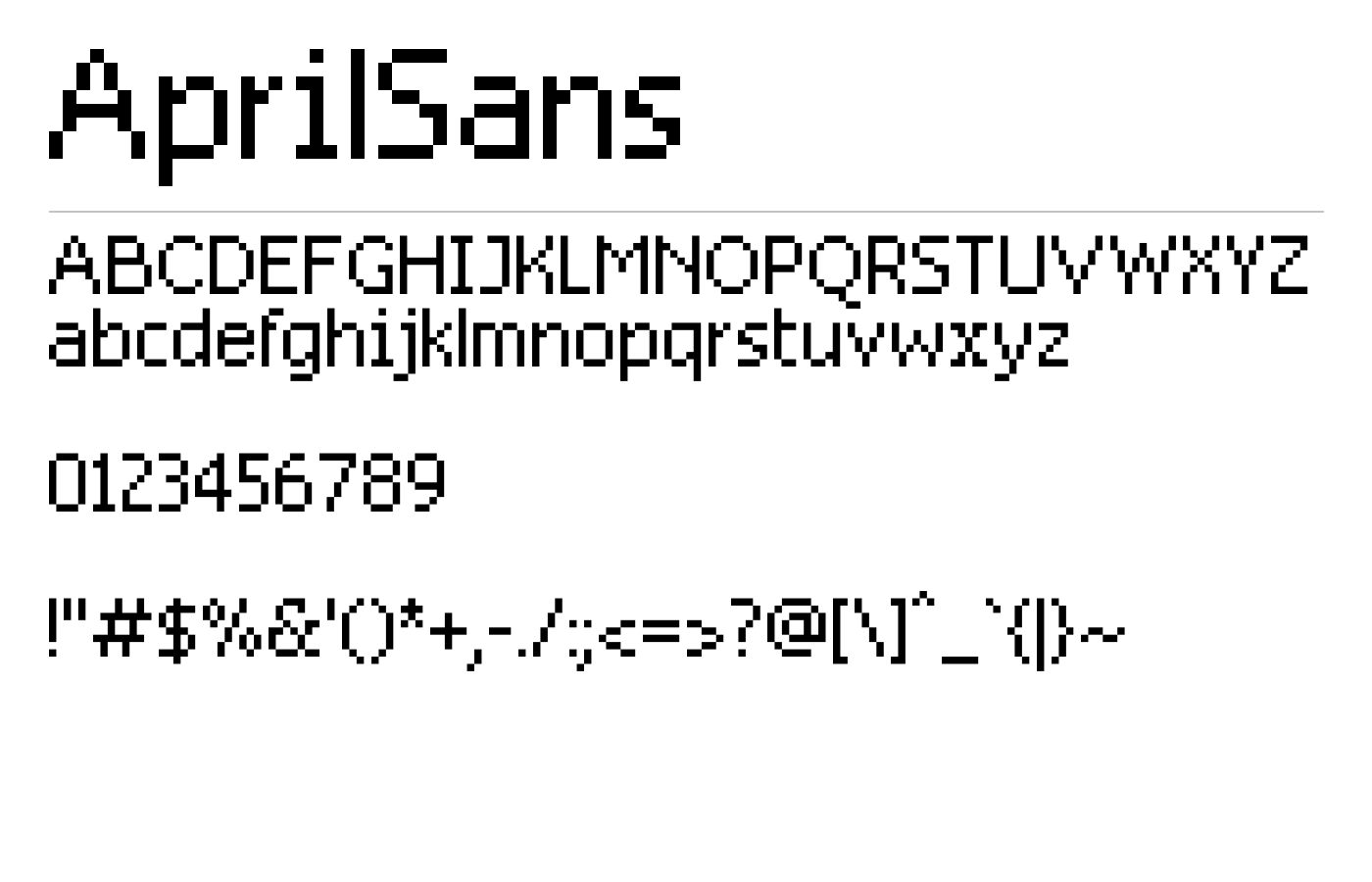
AprilSans is a pixelated sans serif font characterized by its monospaced, blocky letterforms with a retro digital style. Its uniform stroke weight, sharp corners, and simple geometric shapes make it ideal for tech-inspired designs, pixel art, or vintage computer-themed projects. This font works best for headlines, logos, or interfaces where a clear, nostalgic, and techy look is desired.
AprilSans Font
About AprilSans Font
| Font family | AprilSans Font |
| Languages supported | Latin, Katakana, Hiragana, Symbols |
| Designer | typesprite |